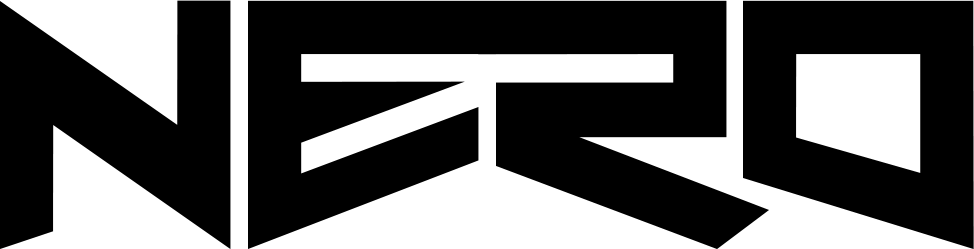
Nero Font
Designed byChequered Ink
This Nero font, most of the time, appears in a futuristic and geometric style that can be viable as the right choice in many situations such as posters, book covers, TV shows, branding, and clothing.
Despite not having lowercase, this sharp font can be highlighted with its unique appearance on each letterhead and attract much attention. Give off an exotic and mysterious sense in your typography with its angular design.
Based off of the original logo of British band Nero. http://thisisnero.com/